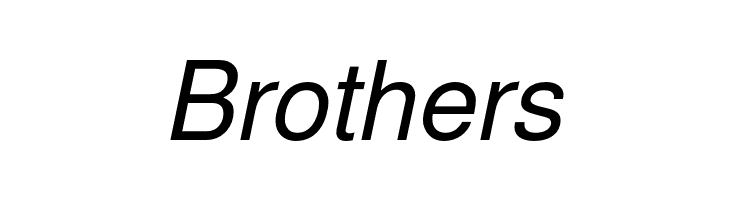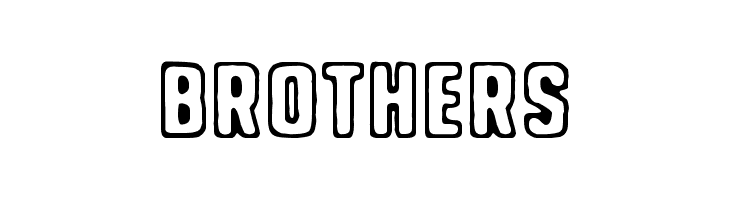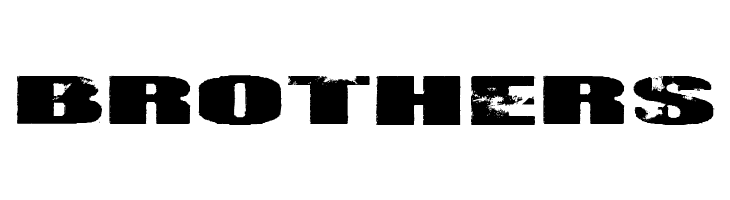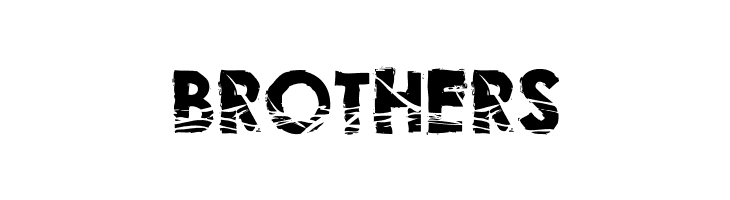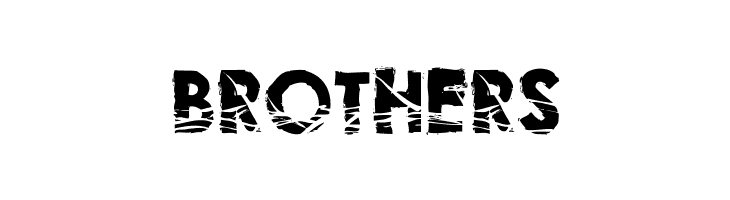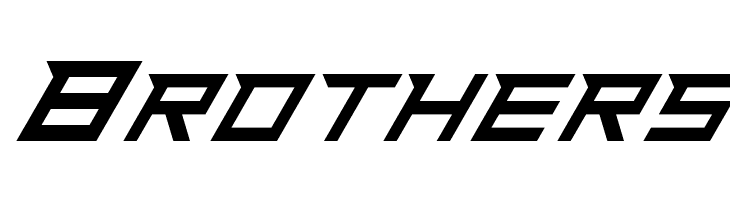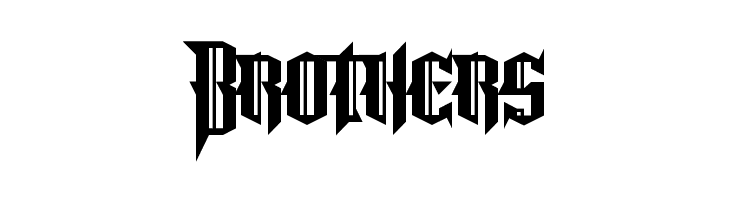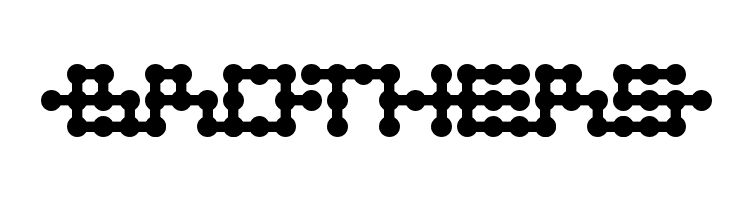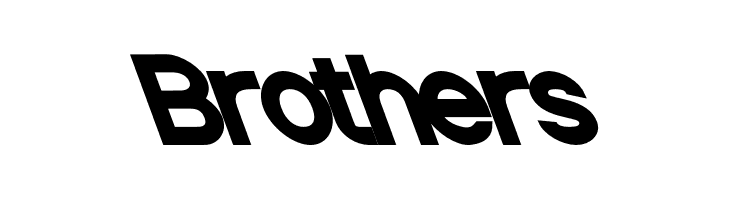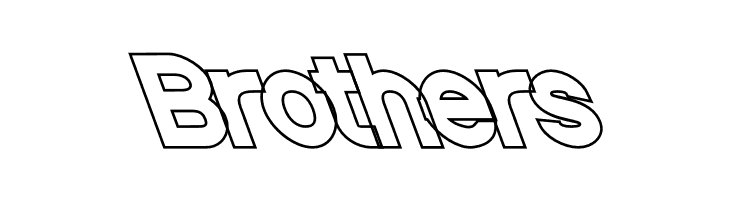
A modern, italic sans-serif font with clean lines and a dynamic style.
A modern, geometric font with thin, elongated characters and a sleek design.
A modern, geometric font with a sleek, futuristic design.
A distressed, grungy font with rough edges and a bold, impactful style.
A bold, distressed font with a grunge effect and tight spacing.
A bold, distressed font with a grunge texture and strong, impactful characters.
A bold, distressed font with a grunge-inspired, textured appearance.
A bold, gothic-inspired font with sharp, angular edges and intricate details.
A playful, handwritten-style font with a lively and informal appearance.
A bold, textured font with a distressed, vintage appearance.
A bold, dot-based font with a futuristic and playful design.
A bold, distressed font with a rugged, grunge texture.
A tall, narrow font with a modern, geometric design.
A playful, bold font with a bubble-like outline and cartoonish style.
A bold, playful font with rounded edges and a hand-drawn look.
A bold, playful font with a hand-drawn, casual style.